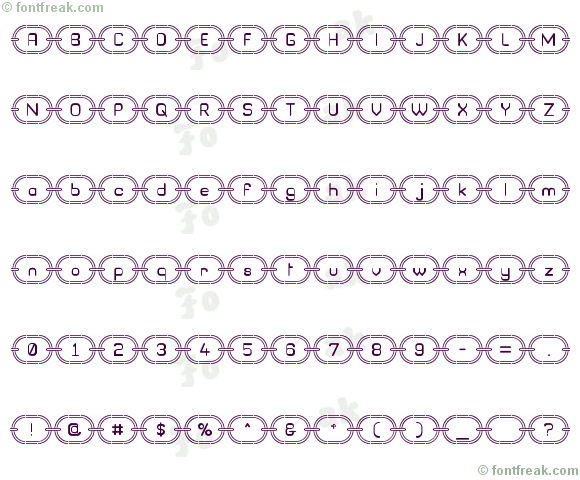
Chainz G98
The Chainz G98 font by Gemfonts is a captivating display typeface that combines modern aesthetics with a playful twist. This unique font features a geometric design characterized by rounded edges and interlocking elements, giving it a distinctive chain-like appearance. The stroke weight is consistent throughout, creating a harmonious balance that is visually appealing, while the spacious letterforms enhance readability and make it suitable for various applications. The decorative elements, which include linking segments, add an innovative flair that sets it apart from more traditional typefaces.
Chainz G98 is particularly well-suited for creative projects that require a bold statement. It excels in use cases such as eye-catching movie posters, where the dynamic shapes can draw attention and pique interest. Additionally, this font is an excellent choice for branding materials, especially for businesses that want to convey a modern and fun image. It can also be effectively used in restaurant menus, where its unique style can enhance the overall dining experience. Content creators and graphic designers will find it invaluable for social media graphics, ensuring their posts stand out in a crowded digital landscape.
The target audience for Chainz G98 includes graphic designers looking for a fresh typeface to elevate their projects, small business owners seeking to create memorable branding, and content creators aiming to attract attention on various platforms.